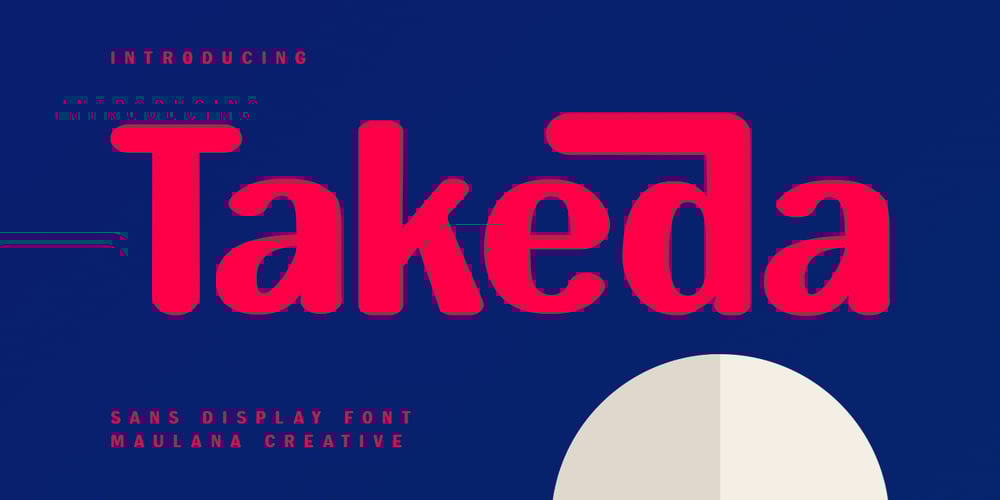
MC Takeda
MC Takeda font
MC Takeda Font Family was designed by Gilang Maulana and published by Maulana Creative. MC Takeda contains 1 styles and family package options. Takeda is a sans serif rounded display font. With bold tall and sharp stroke, fun character with a bit of ligatures and alternates. To give you an extra creative work. Takeda font support multilingual more than 100+ language. This font is good for logo design, Social media, Movie Titles, Books Titles, a short text even a long text letter and good for your secondary text font with sans or serif. Make a stunning work with Takeda font.Cheers,Maulana Creative